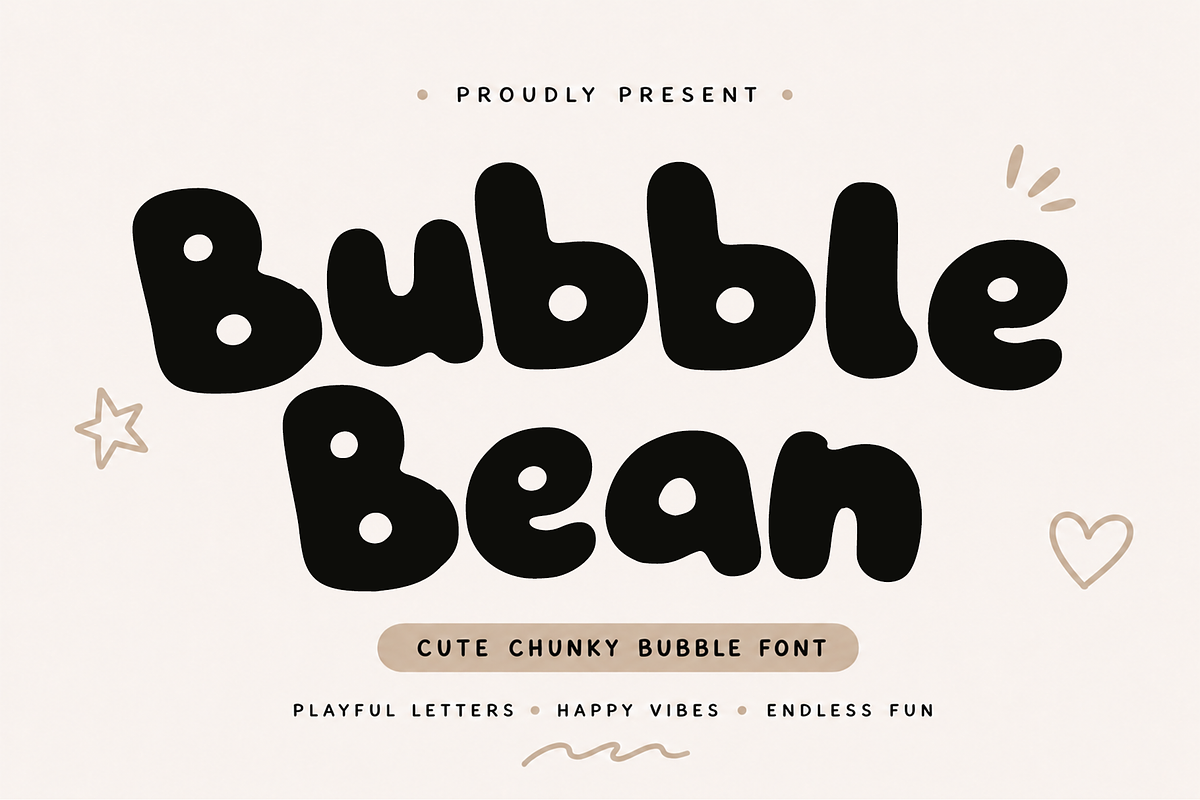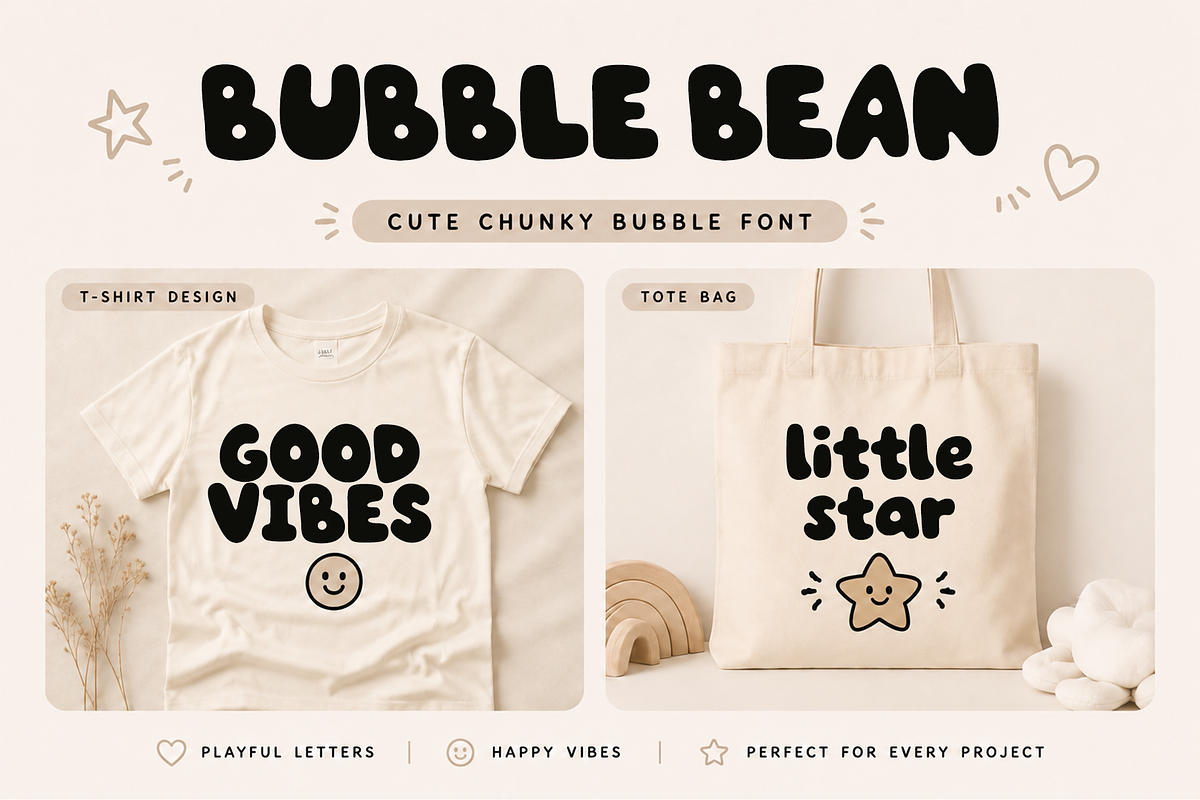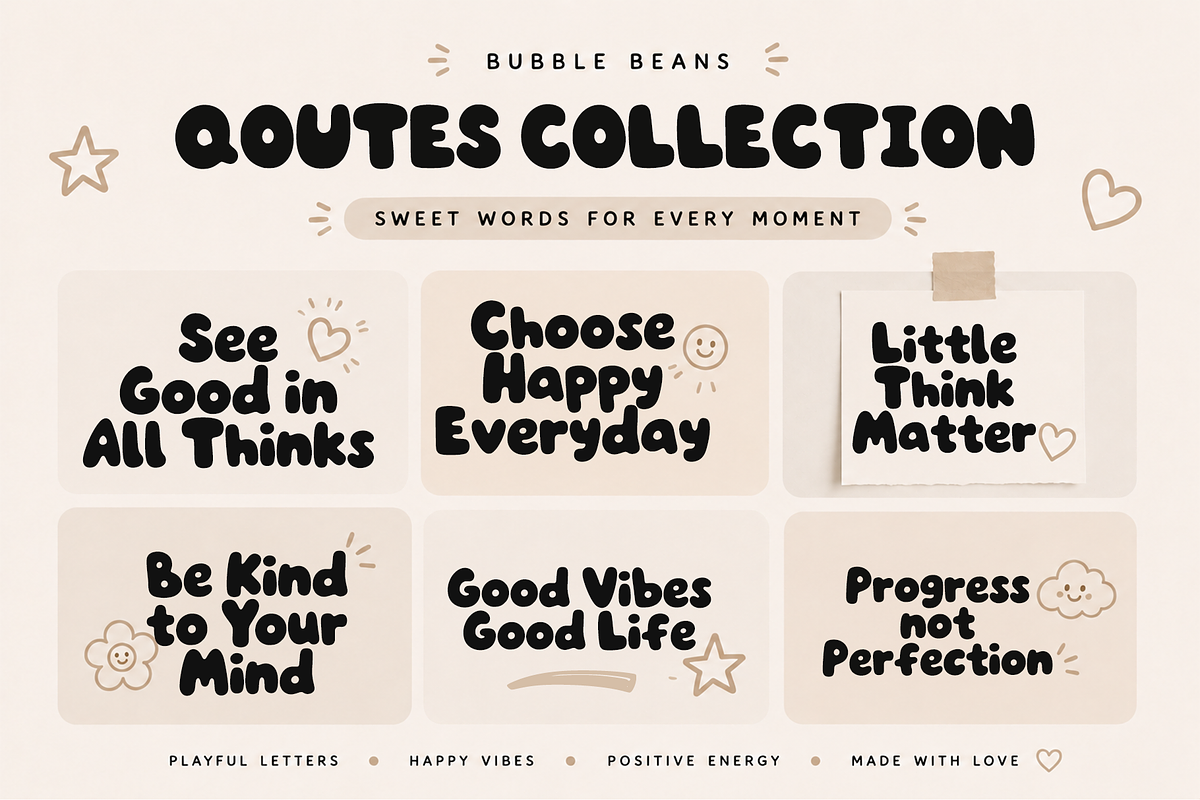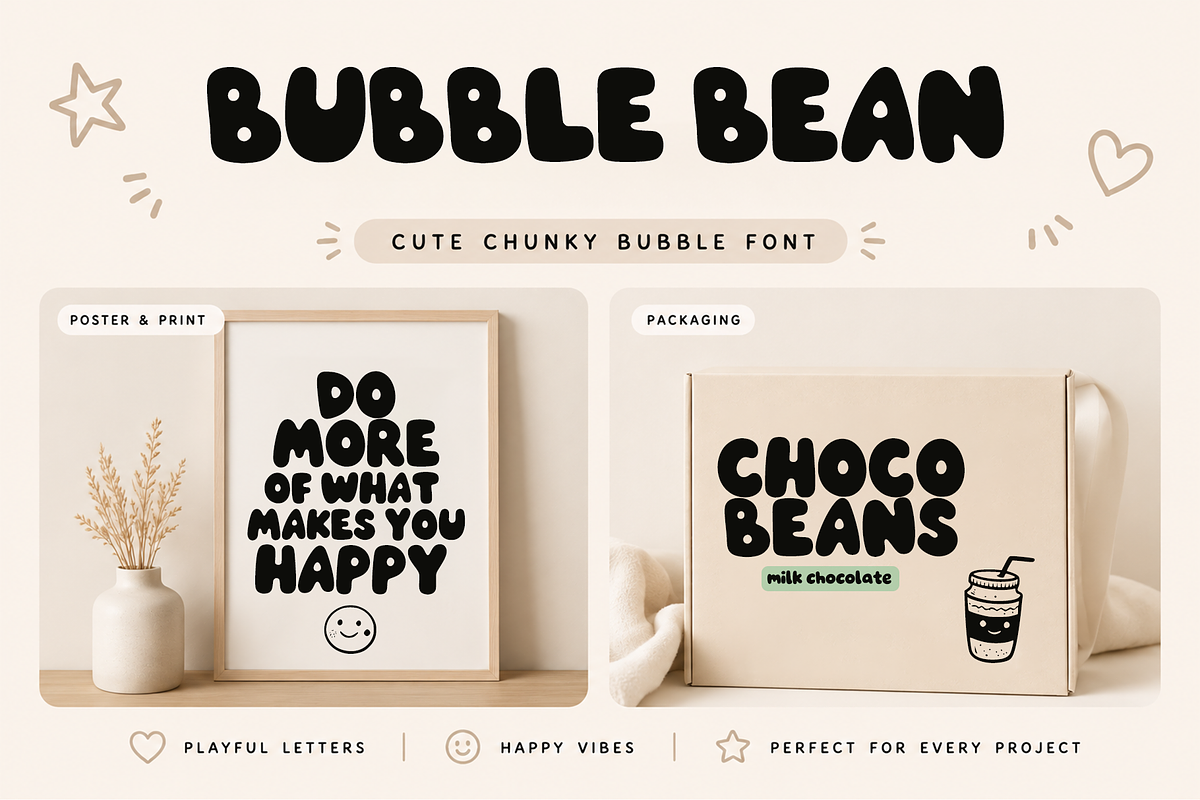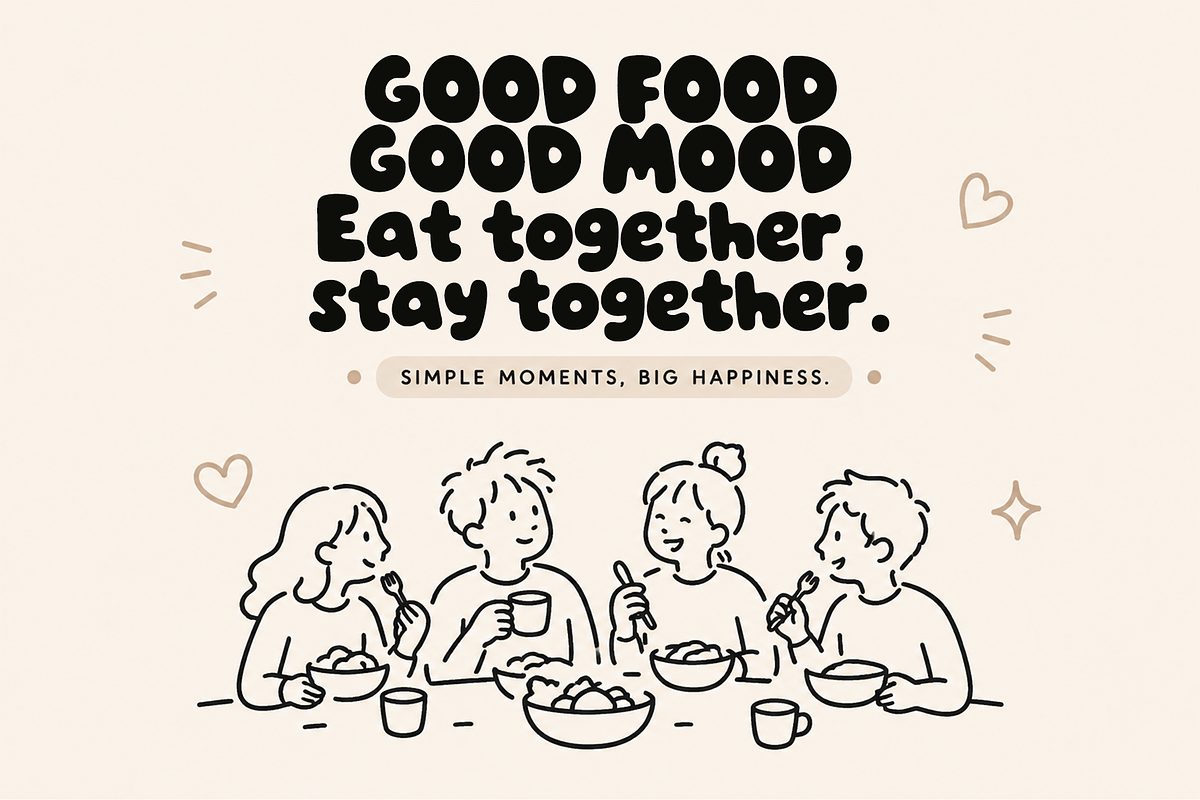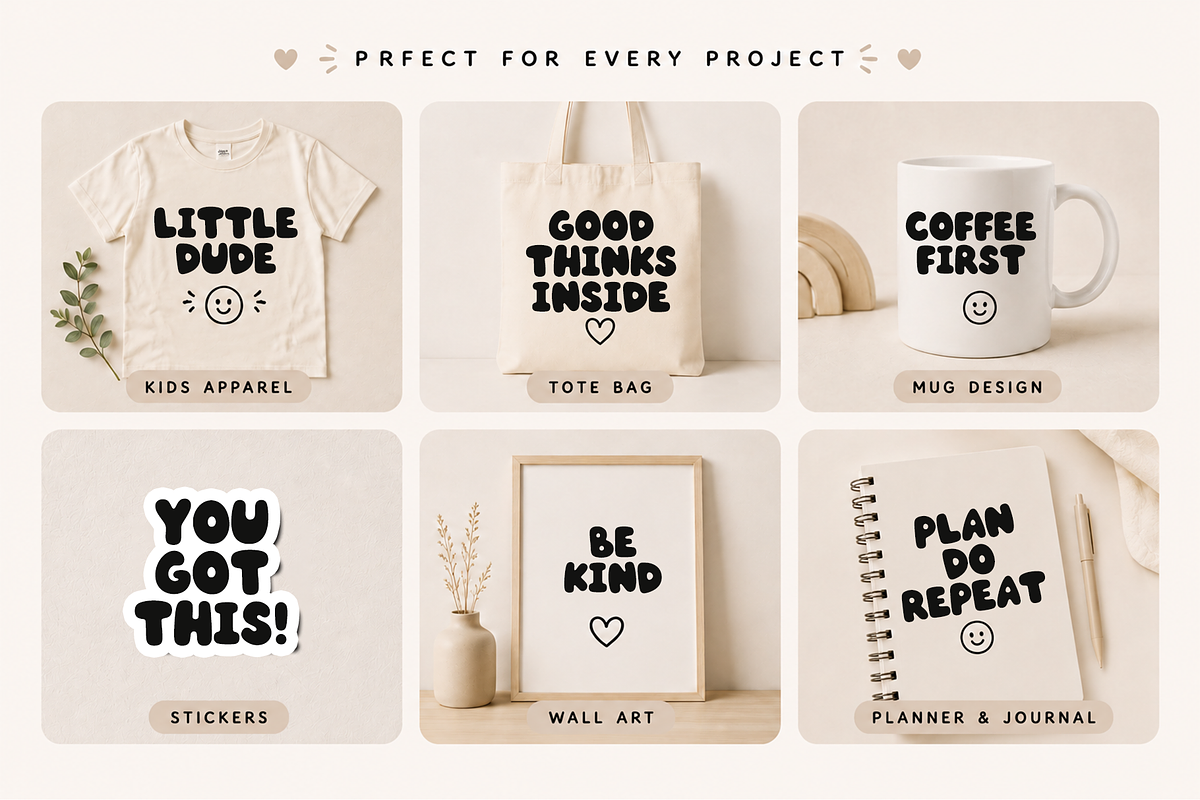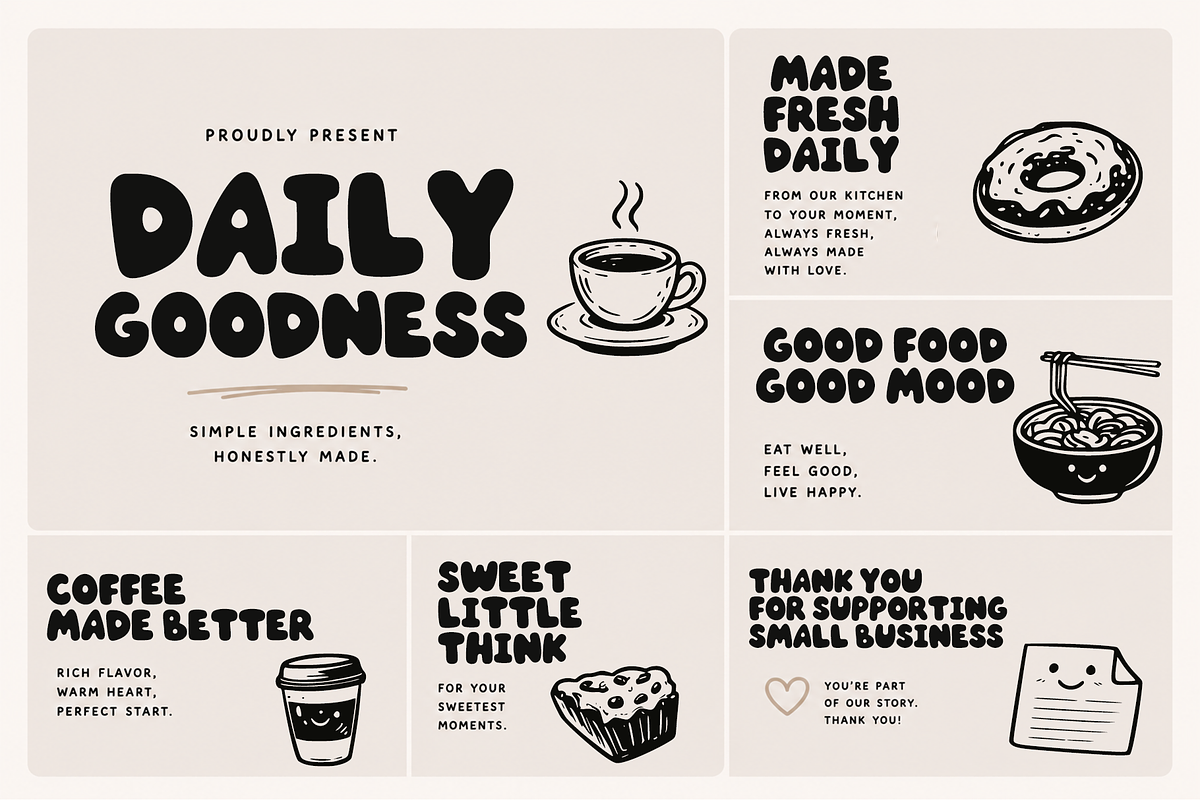
Bubble Bean
Bubble Bean is a playful bubble-style display font that brings a soft, cheerful, and full-of-character feel to any design. Featuring bold, rounded letterforms with smooth curves, this font is crafted to deliver a friendly and highly legible look at various sizes.
Each character is carefully designed with balanced proportions and gentle edges, creating a fun and approachable style without sacrificing clarity. Its chunky and eye-catching appearance makes it perfect for headlines and standout visual elements.
This font also comes with extra doodles, adding more creative possibilities to enhance your designs. These simple and fun decorative elements help create a lively and expressive composition with ease.
Bubble Bean is perfect for a wide range of design needs such as kids branding, food packaging, posters, social media content, merchandise, and other creative projects with a fun and lighthearted theme. Its versatile style works well for both modern and casual designs.
Bold and rounded letterforms
High readability for display use
Includes extra doodles for decoration
Playful and friendly vibe
Suitable for print and digital projects
Bubble Bean delivers happy vibes and positive energy, making it an ideal choice for designs that aim to feel warm, fun, and engaging.